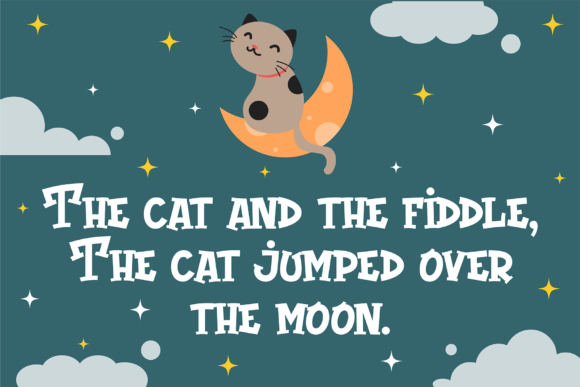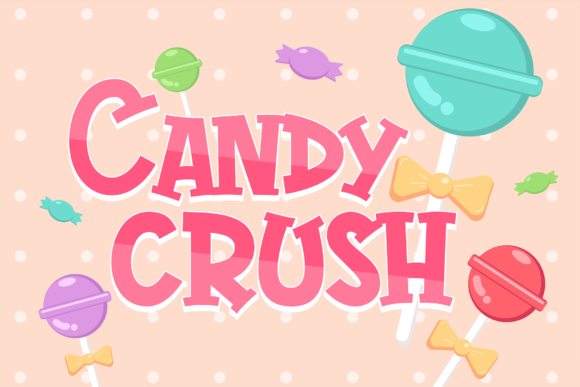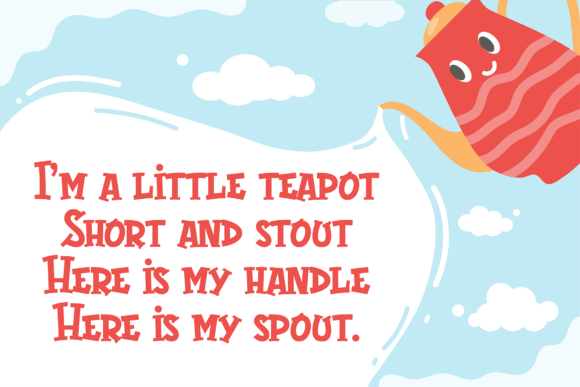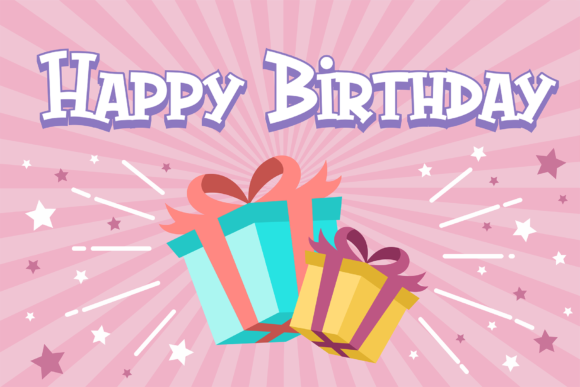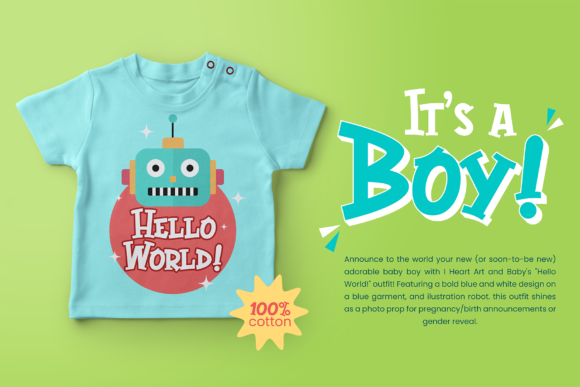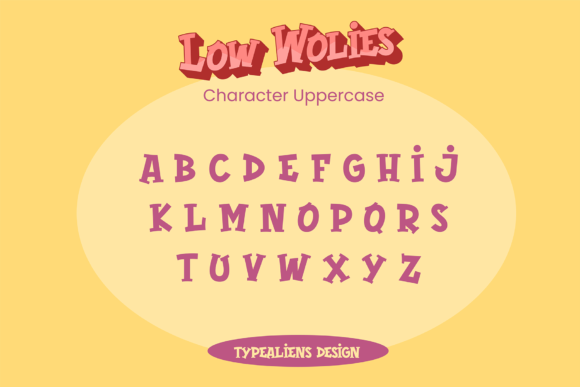
Introduction to Low Wolies Font
Low Wolies is a playful and fun serif font.
It is suitable for more informal and almost childish projects that need a happy touch .
Key Features of Low Wolies Font
Why Choose Low Wolies Font?
Low Wolies Font offers exceptional quality and versatility, making it a valuable addition to your design toolkit. Whether you’re creating for personal projects or commercial use, Low Wolies Font delivers professional results.